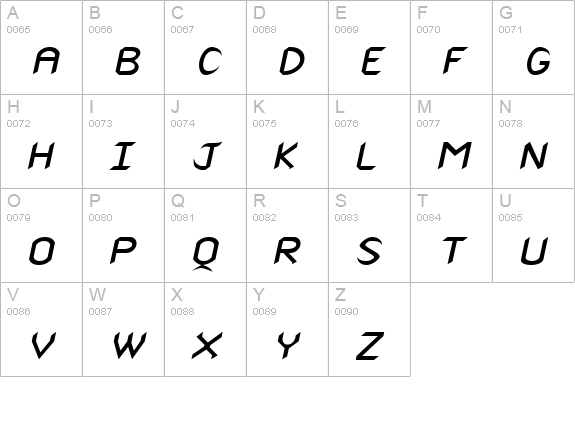
Spike-Extended Italic Font Details
Spike-Extended Italic is a distinctive, extended-width, italic variant in the Spike typeface family \xE2\x80\x94 well suited to design and typography projects.
Introducing Spike-Extended Italic, a stunning and versatile font that effortlessly combines elegance and modernity. With its elongated and slanted letterforms, this typeface exudes a sense of sophistication and creativity. Spike-Extended Italic is perfect for adding a touch of uniqueness to any design project. This font offers a wide range of characters that are both sleek and captivating. Each letter has been meticulously crafted to ensure perfect balance and legibility, making it suitable for various purposes, such as branding, advertising, headlines, and more. Whether you're working on a fashion magazine, a luxury brand, or a contemporary website, Spike-Extended Italic will elevate your design to new heights. One of the best features of Spike-Extended Italic is its versatility. It can be used for both display purposes and longer blocks of text, making it an ideal choice for designers who value flexibility. The italicized nature of the font adds a touch of dynamism and fluidity, creating a visual experience that is both captivating and memorable. And the best part? Spike-Extended Italic is completely free! Yes, you read that right. This remarkable font is freely available to download at FontsMarket.com. Now, you can enhance your creative projects without any budget constraints. Whether you're a professional designer or an aspiring enthusiast, Spike-Extended Italic is here to help you bring your ideas to life. So, don't miss out on this incredible opportunity to elevate your designs with Spike-Extended Italic. Download it for free at FontsMarket.com and let your creativity take flight.